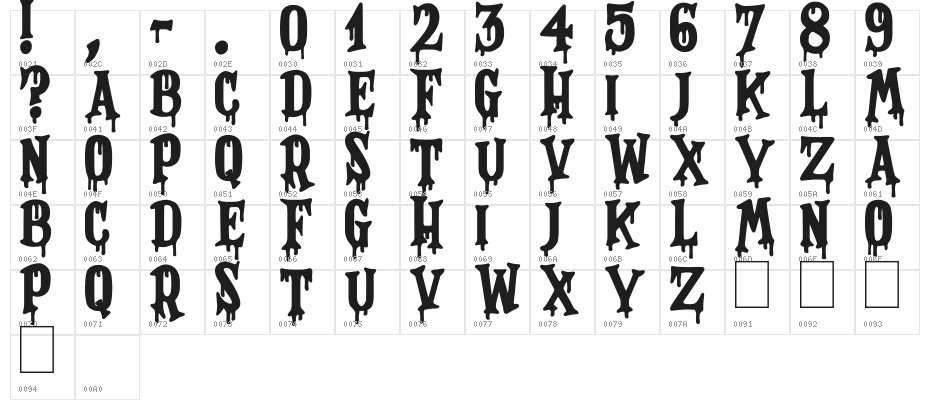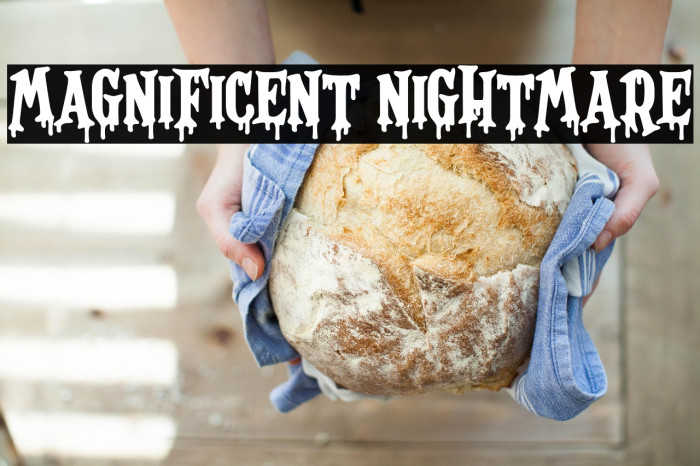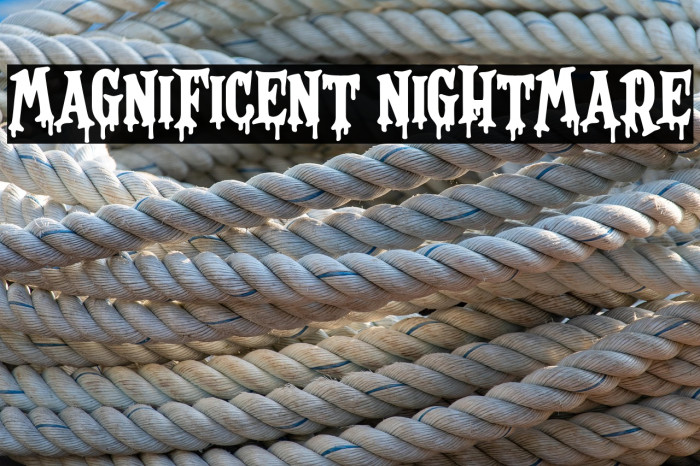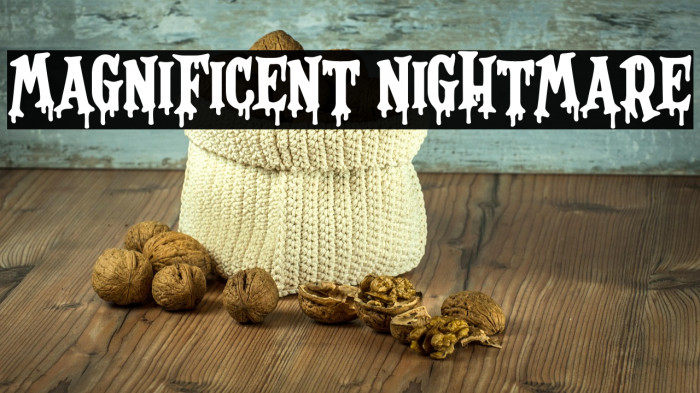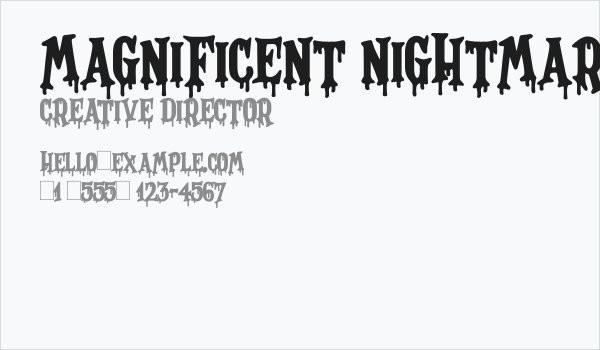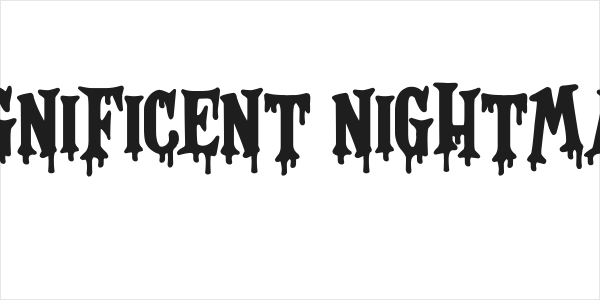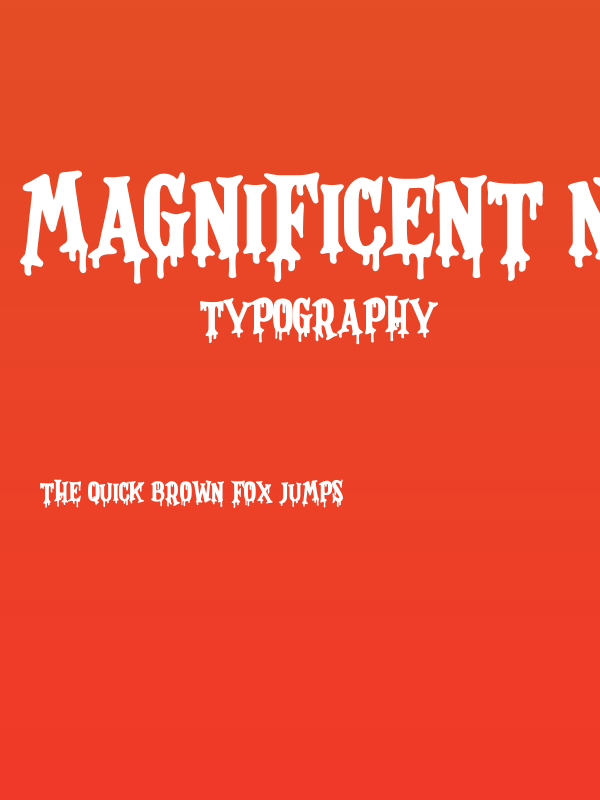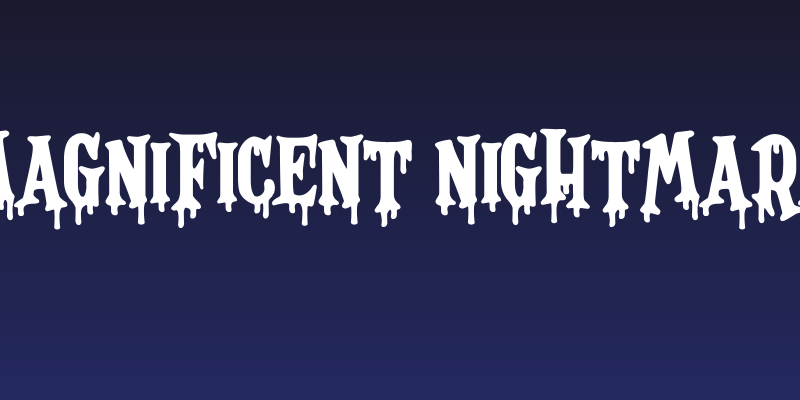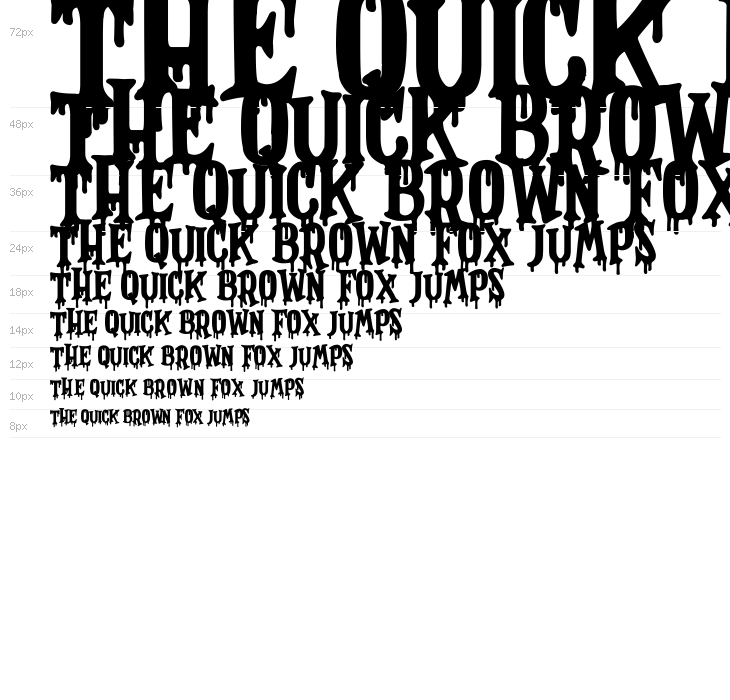
Magnificent Nightmare Font
Magnificent Nightmare Description
This font exudes a spooky and eerie vibe, characterized by its dripping effect that mimics melting or oozing liquid. The uppercase and lowercase letters maintain a consistent style, with exaggerated serifs and a bold presence that enhances its dramatic appearance. The numbers and special characters follow the same theme, ensuring a cohesive look across all elements. Its unique design makes it ideal for Halloween-themed projects or any creative work requiring a touch of horror or mystery. The font's boldness and distinct style make it stand out, capturing attention with its unconventional and artistic flair.
| Proposed Projects | Ideal for Halloween invitations, horror movie posters, themed event flyers, and spooky merchandise designs. |